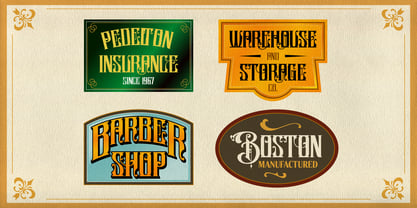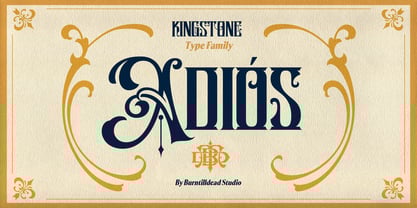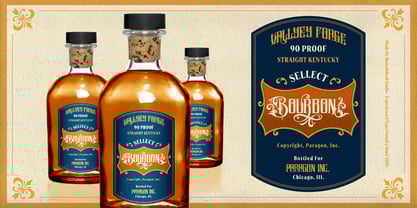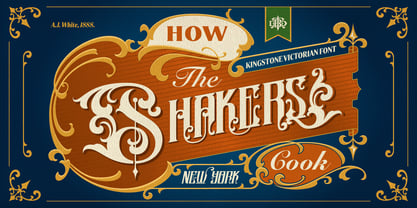
BTD Kingstone
by Burntilldead
The BTD Kingstone Font Family was designed by Eric Kurniawan and published by Burntilldead. BTD Kingstone contains 3 styles and family package options. More about this family
Introducing a majestic display font with Victorian charm called Kingstone. The intricate details and elegant flourish, brings out a vintage and royal charm. Inspired by signage from Victorian era, make this font looks impressiveness and gentlemen elegant. This font has 3 styles: regular, extrude and gradient. This font perfect for luxurious branding, luxury product, barber shop, tattoo parlor, invitation, book cover, magazine, and any design project that needs victorian and vintage charm.
Features:
• A - Z set (Uppercase & Lowercase)
• Number
• Punctuation
• Alternates
• Ligatures
• Multilingual
Designers: Eric Kurniawan
Foundry: Burntilldead